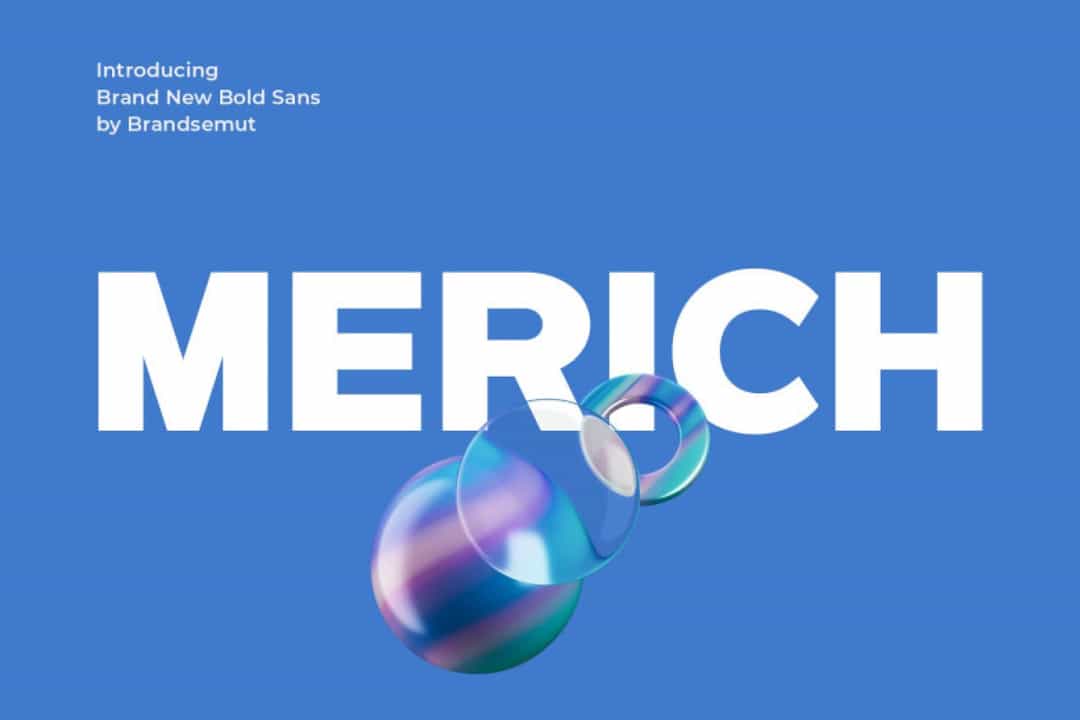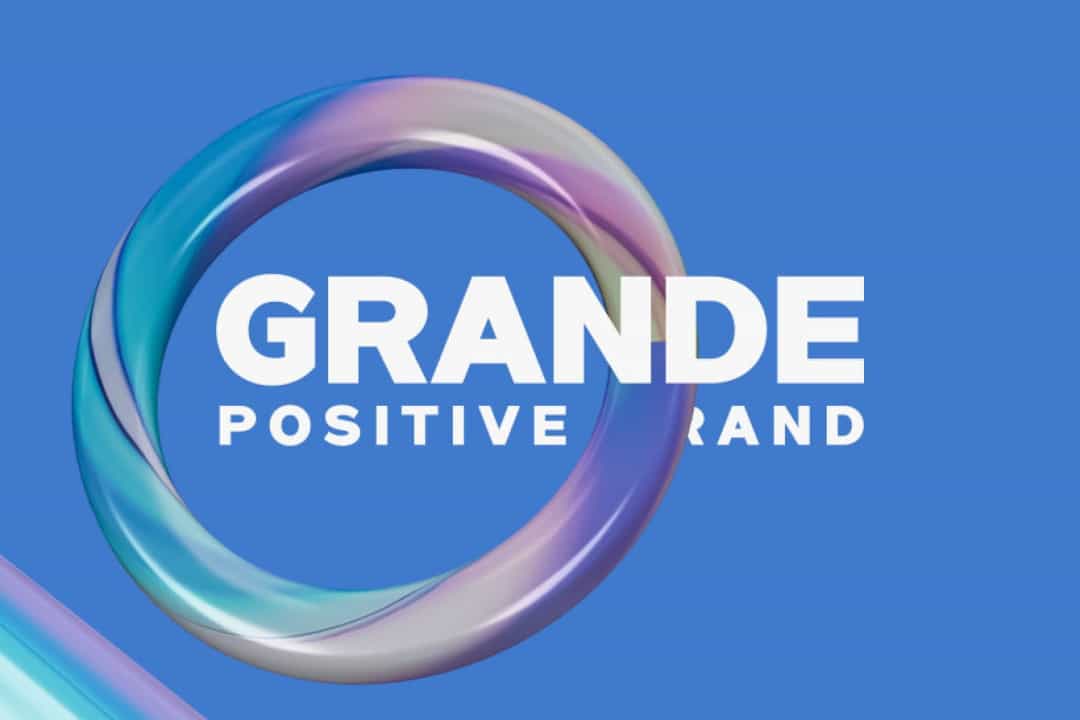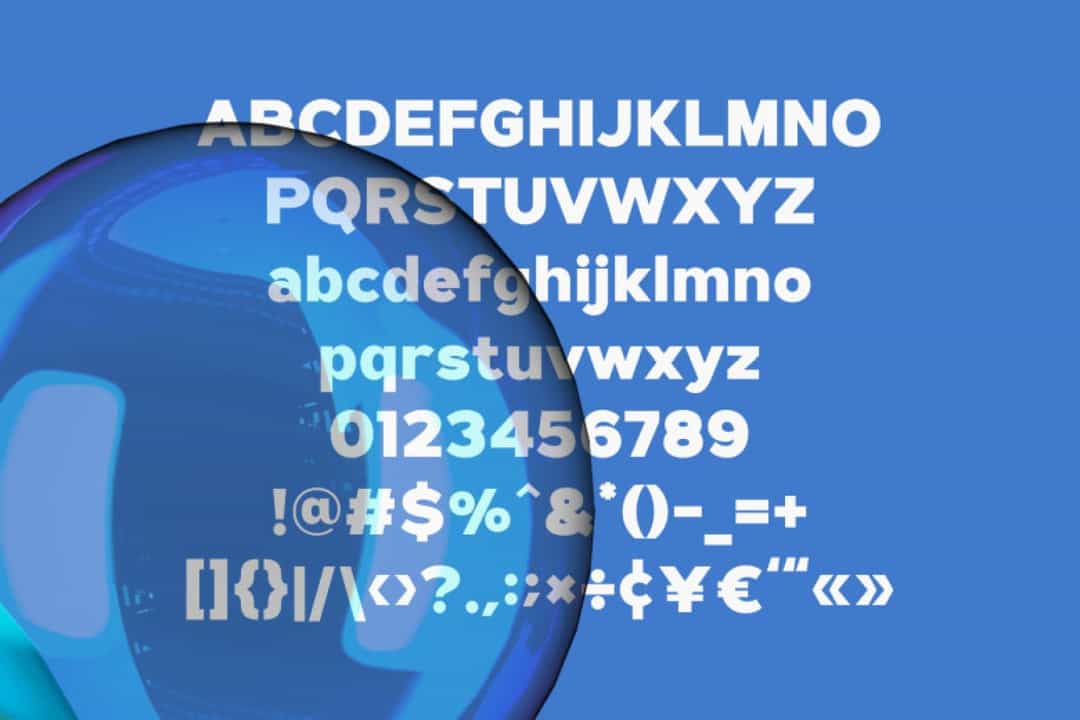
Merich is an elegant yet simple sans serif font which can be utilized as a display font in logos, headings, magazines, branding packages and invitations. Distinguished by sleek edges and soft curves that add sophistication to each project.